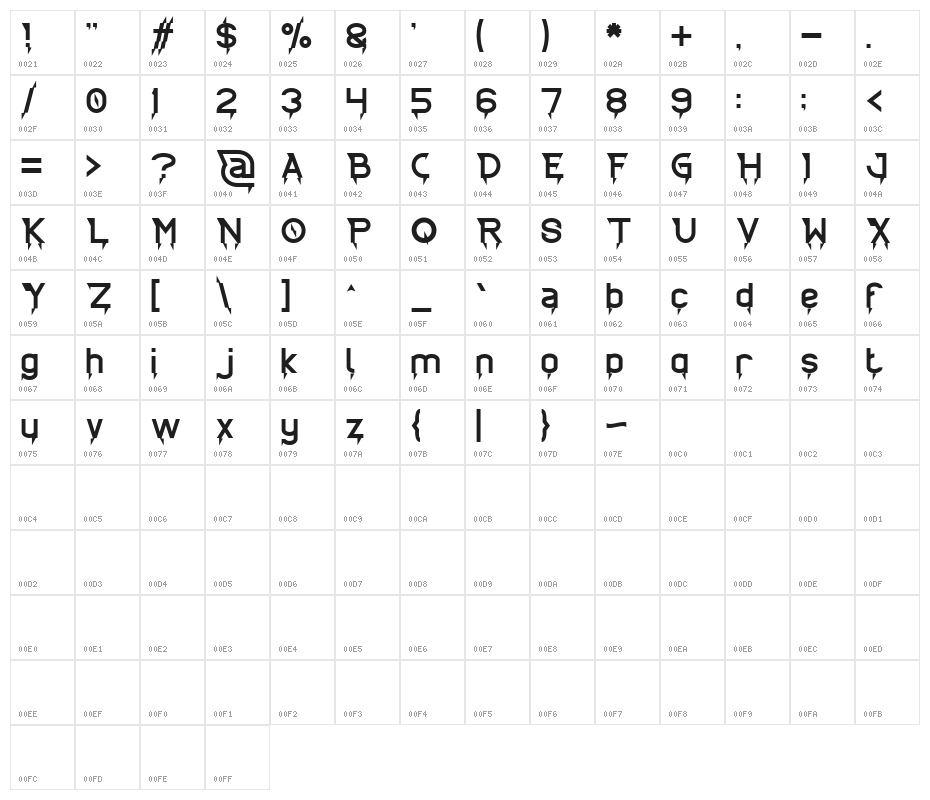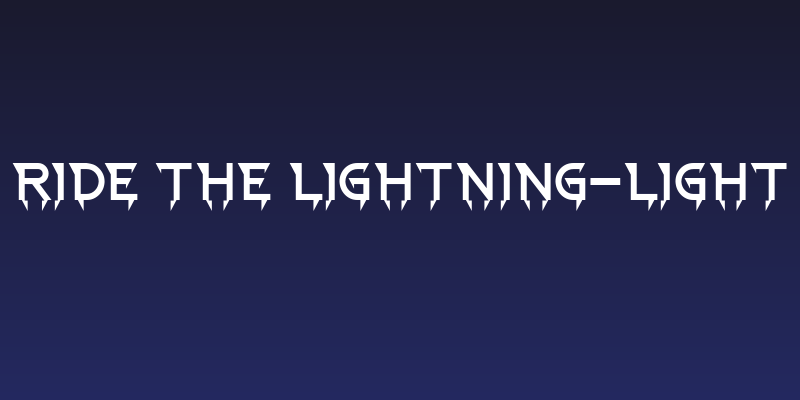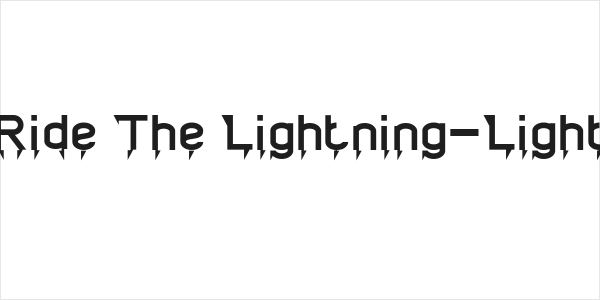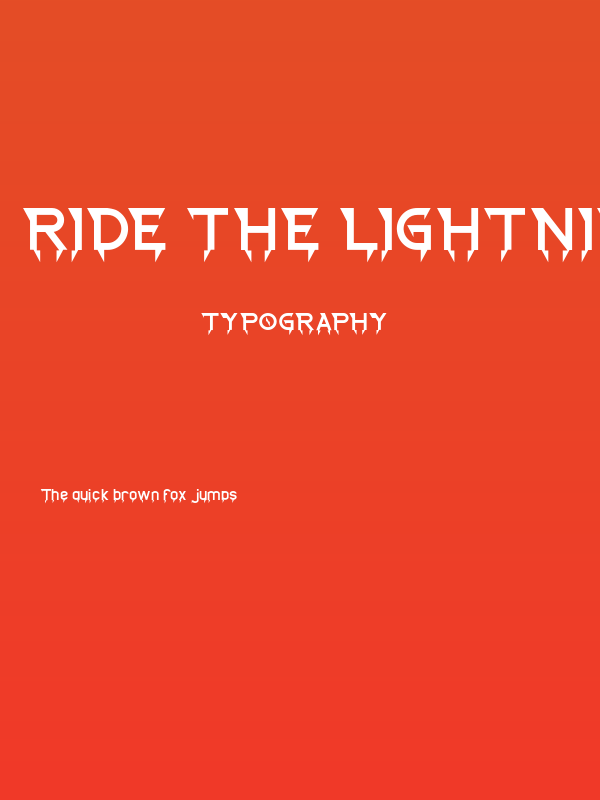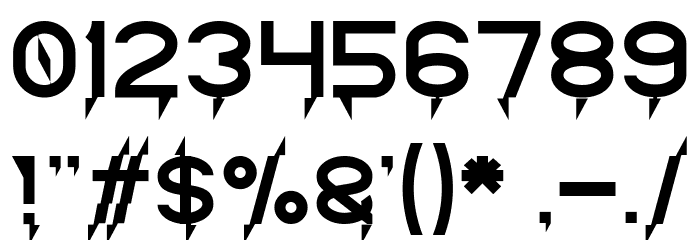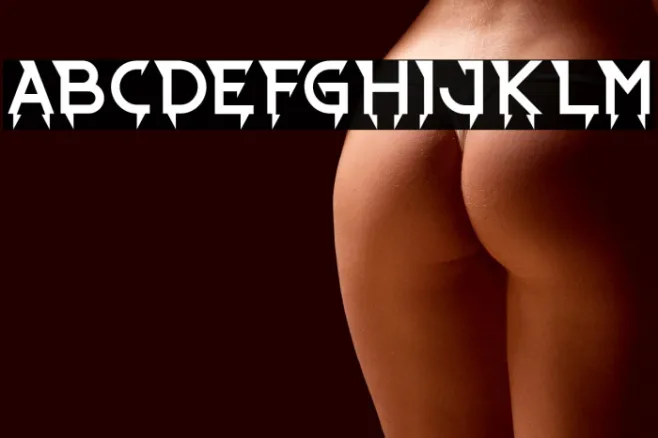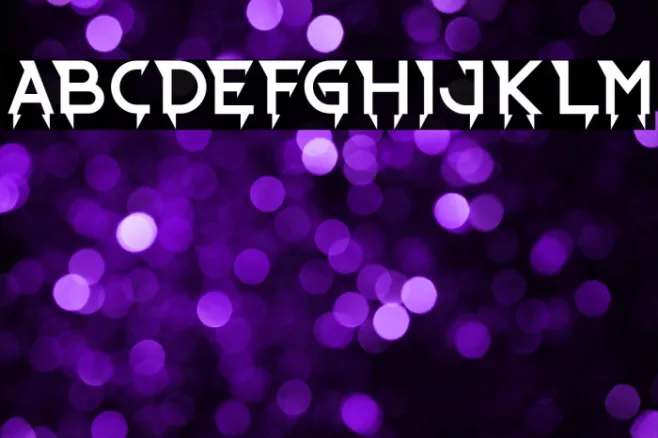
Ride The Lightning-Light Font
Ride The Lightning-Light Description
This font features a bold and electrifying design with sharp, angular edges that mimic the appearance of lightning bolts. The uppercase letters are particularly striking, with each character incorporating a dynamic, jagged element that adds a sense of movement and energy. The lowercase letters maintain a more subdued version of this style, offering a balance between readability and visual impact. Numbers and special characters follow the same theme, ensuring consistency across all glyphs. The overall effect is both modern and edgy, making it ideal for projects that require a bold statement.
| Proposed Projects | Ideal for music album covers, event posters, branding for energy drinks, or any project needing a bold, electrifying aesthetic. |